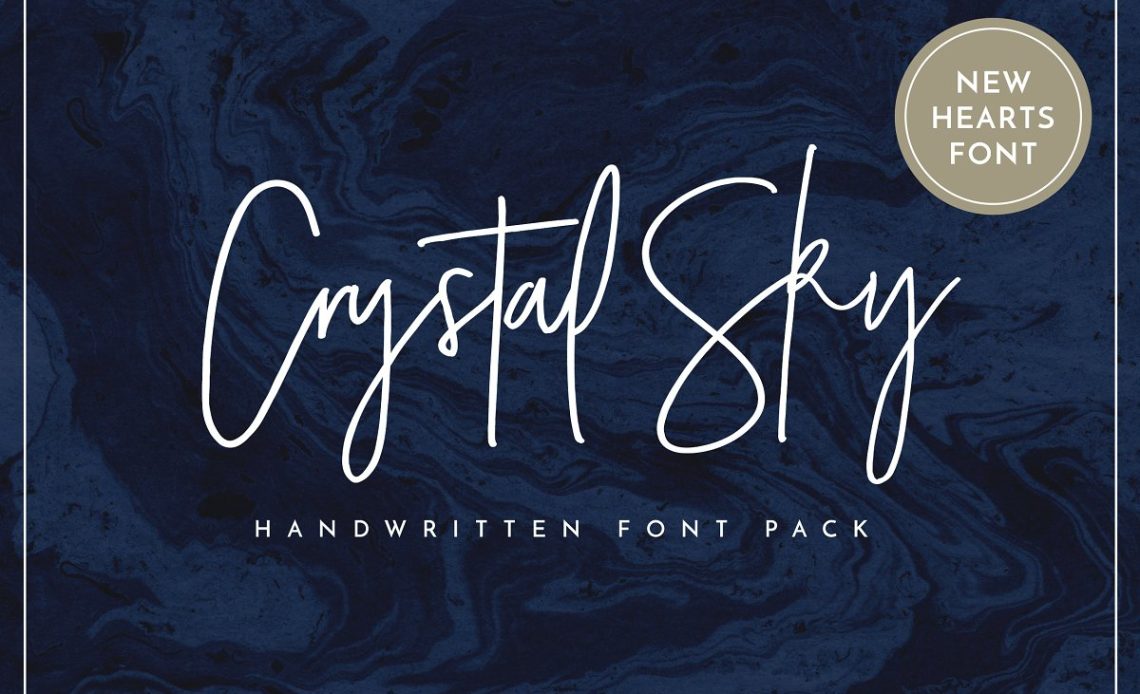
Looking for the perfect font for your wedding card? Look no further than Crystal Sky Font! Created by Sam Parrett, this script font is the ideal choice for creating authentic hand-lettered text quickly and easily. With exaggerated strokes and an extra bouncy baseline, Crystal Sky has an unmistakable charm that will add a little sparkle to your designs.
One of the standout features of Crystal Sky is its lowercase alternates. This entire alternate glyph set is accessible simply by turning on "Stylistic Alternates" in any software with OpenType capabilities. And for anyone having trouble accessing the alternates via this method, Sam has included them as their own separate font file - just install "Crystal Sky Alt" and select it in your text tool.
But that's not all! Crystal Sky also comes with an all-caps version, perfect for those moments when you need to go a bit wild. And if you need a bit more visual appeal, Sam has included a bonus vector pack with 32 hand-drawn doodles that pair perfectly with Crystal Sky.
And now, with the new update, you can add even more passion to your designs with Crystal Sky Hearts! This new font is included in your download and adds a beautiful, flowing decorative heart at the beginning, middle, and end of your Crystal Sky Script text at the click of a button. Simply install it as its own separate font, and type any a-z or A-I character in this font to generate one of 35 heart decorations.
Crystal Sky is packed full of great features to give you plenty of customization options. It has a large range of glyphs including punctuation, numerals, international language support, ligatures, and additional extra glyphs for some lowercase characters. And it comes in TTF and OTF formats for your convenience.
So if you want a font that's perfect for logos, wedding stationery, cards, gift designs, product packaging, and handwritten quotes, look no further than Crystal Sky Font. With its charming style and versatile features, it's the ideal choice for your next project.